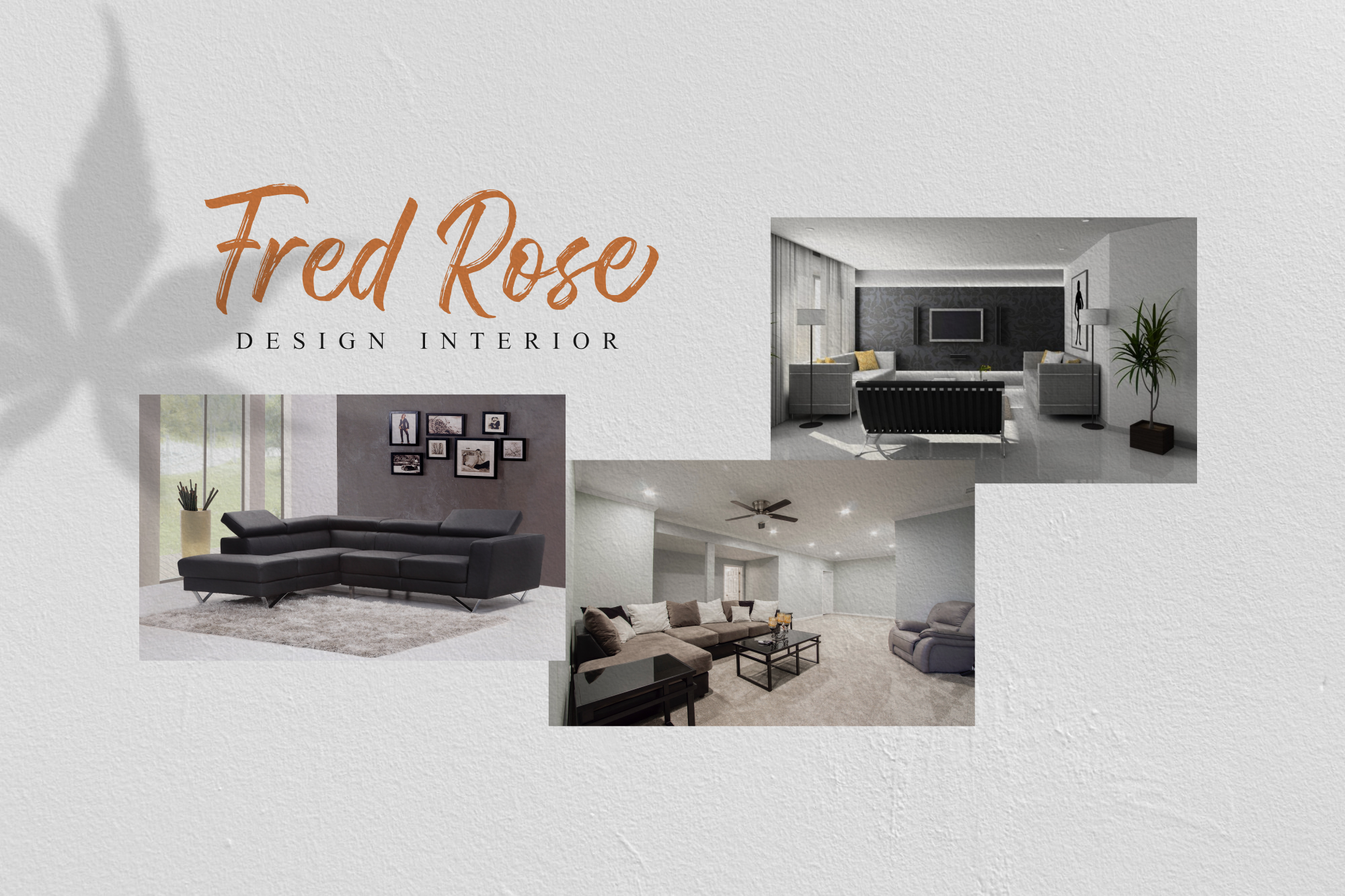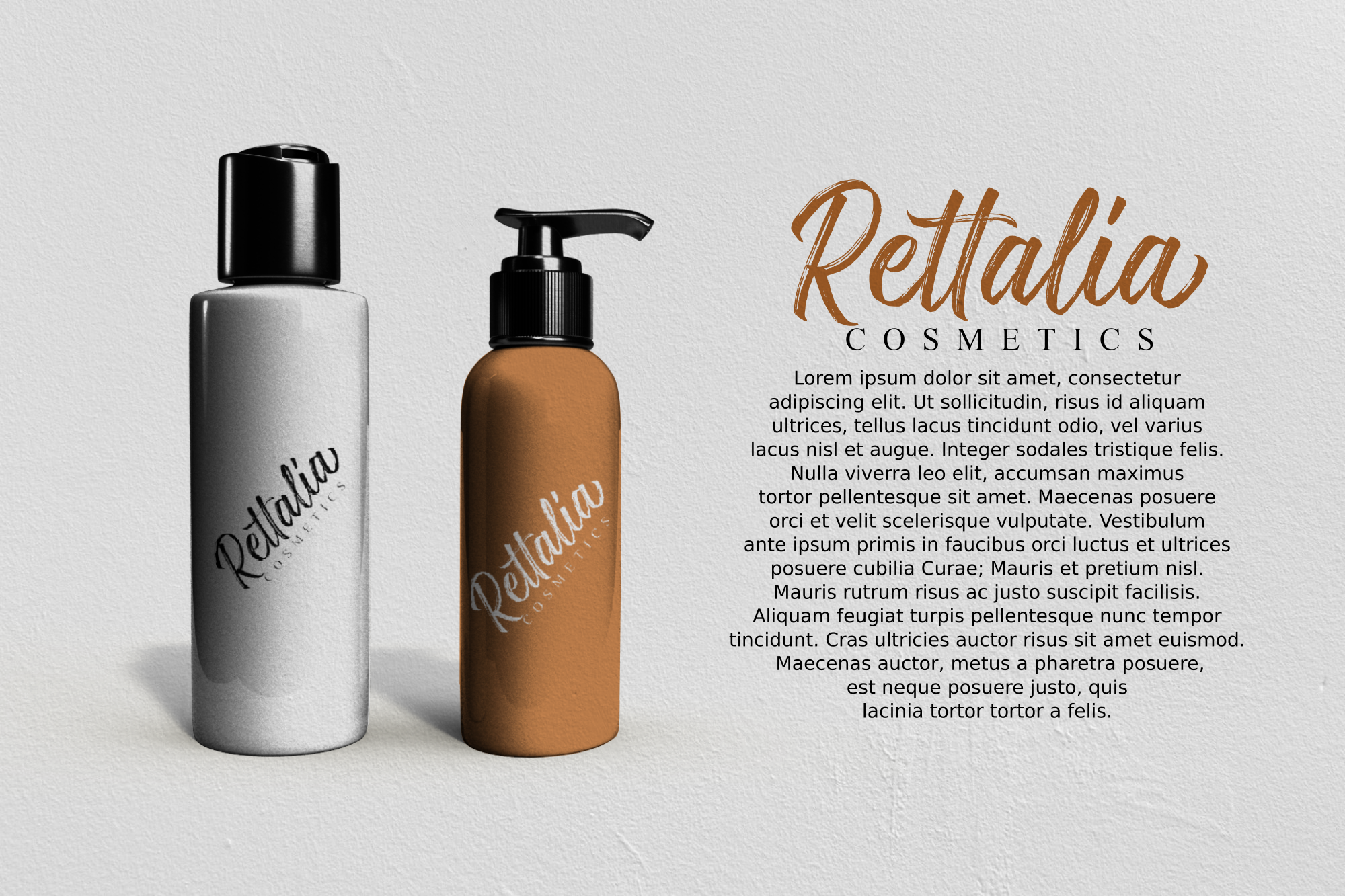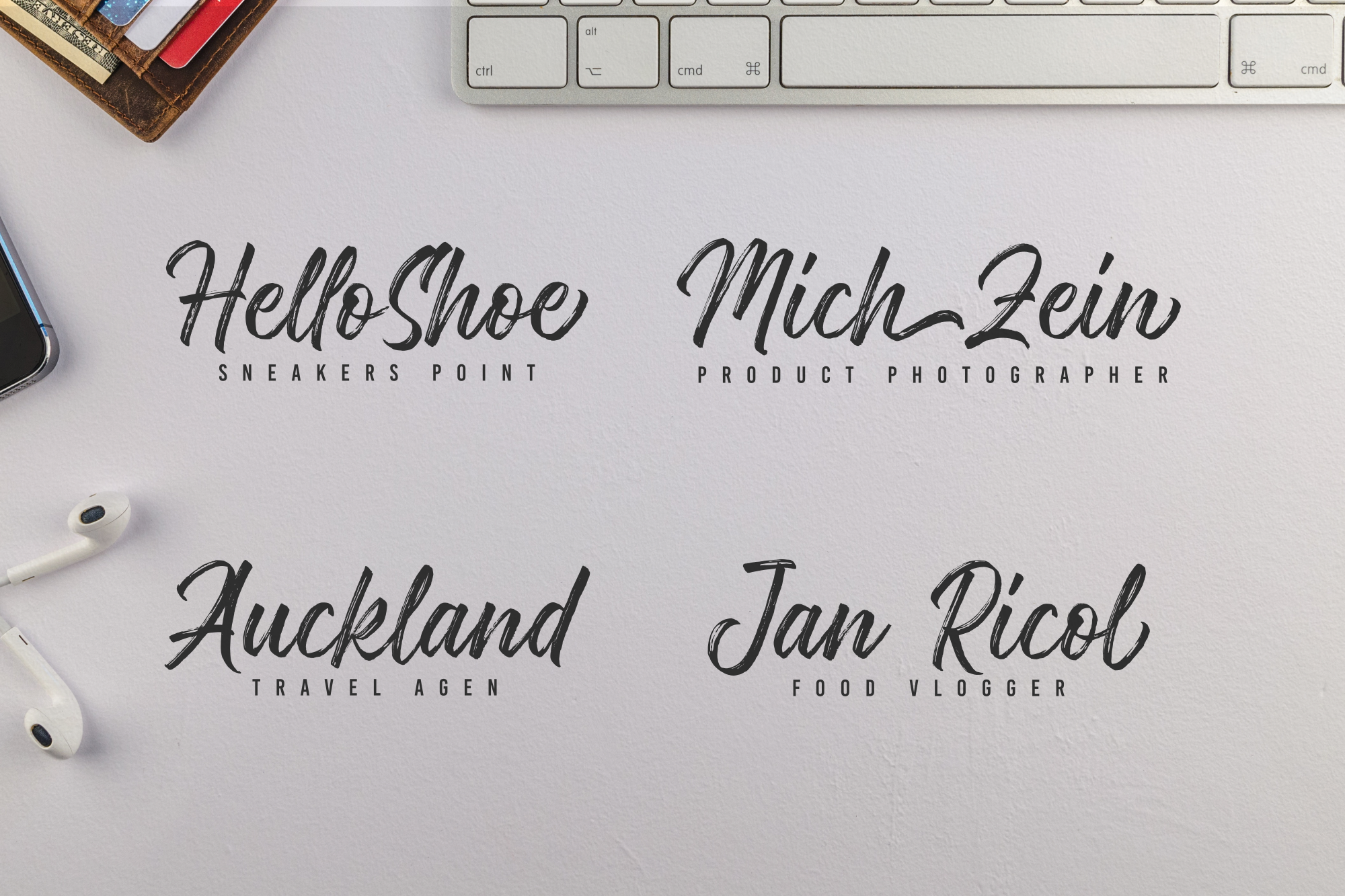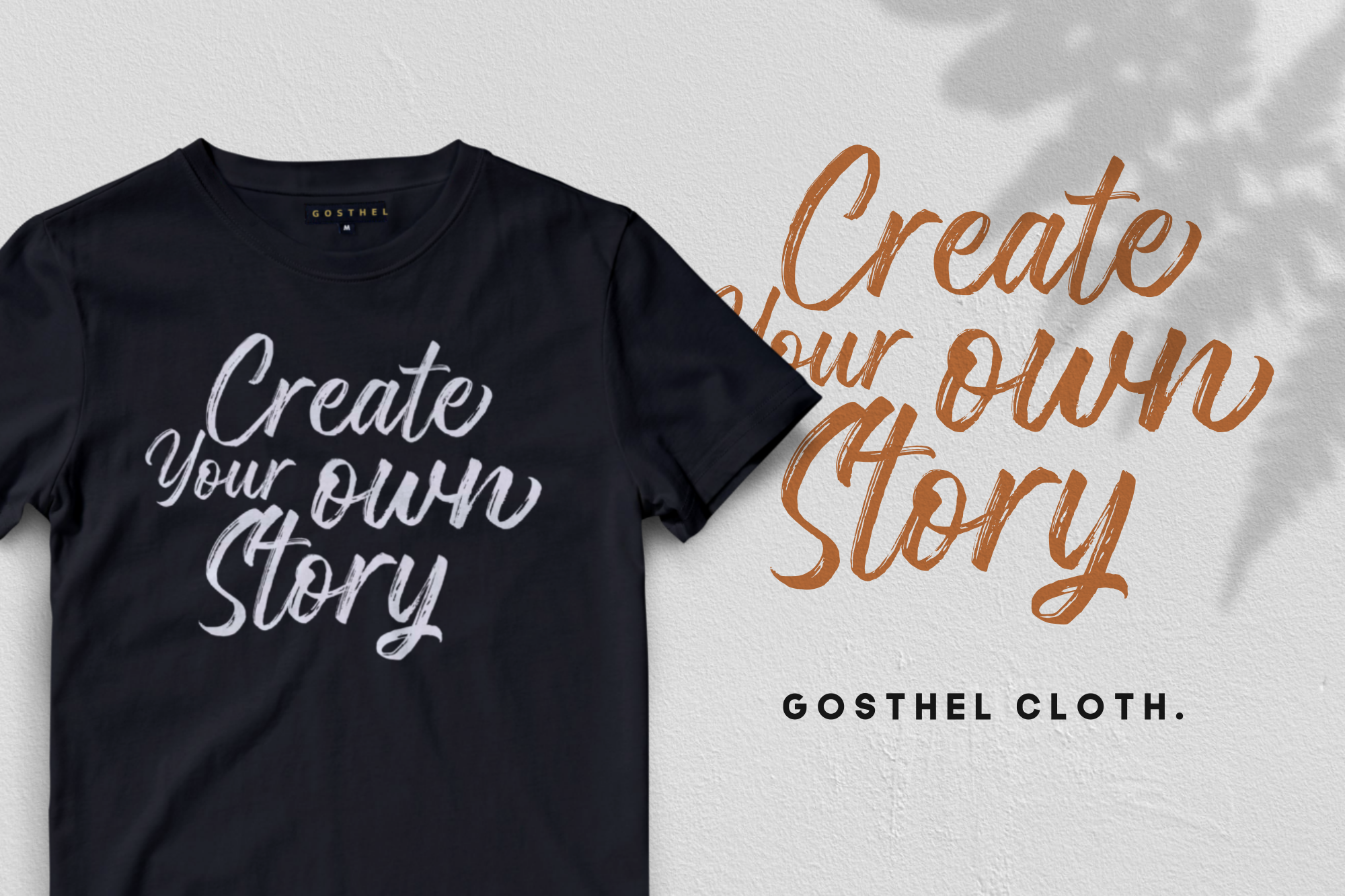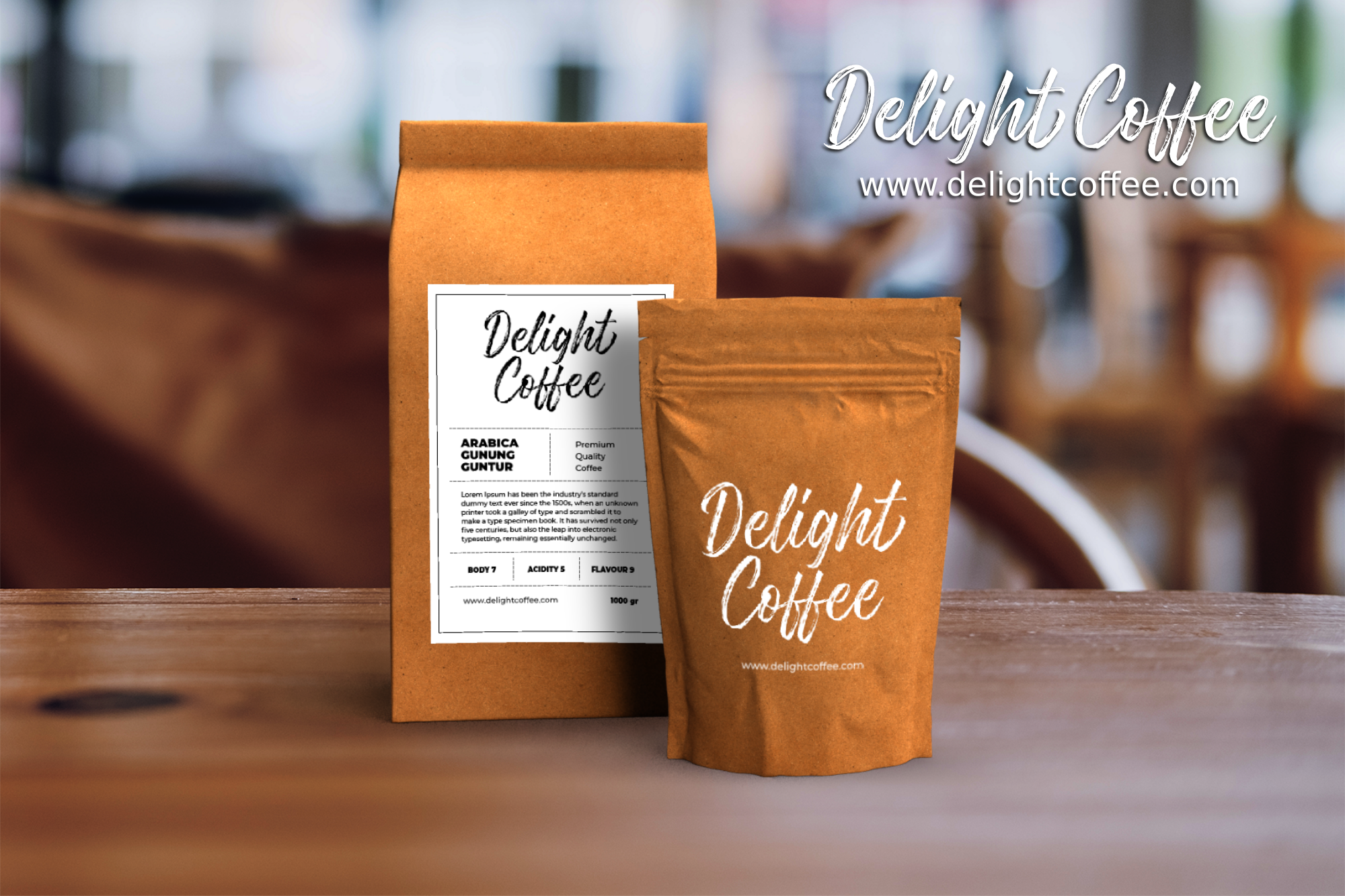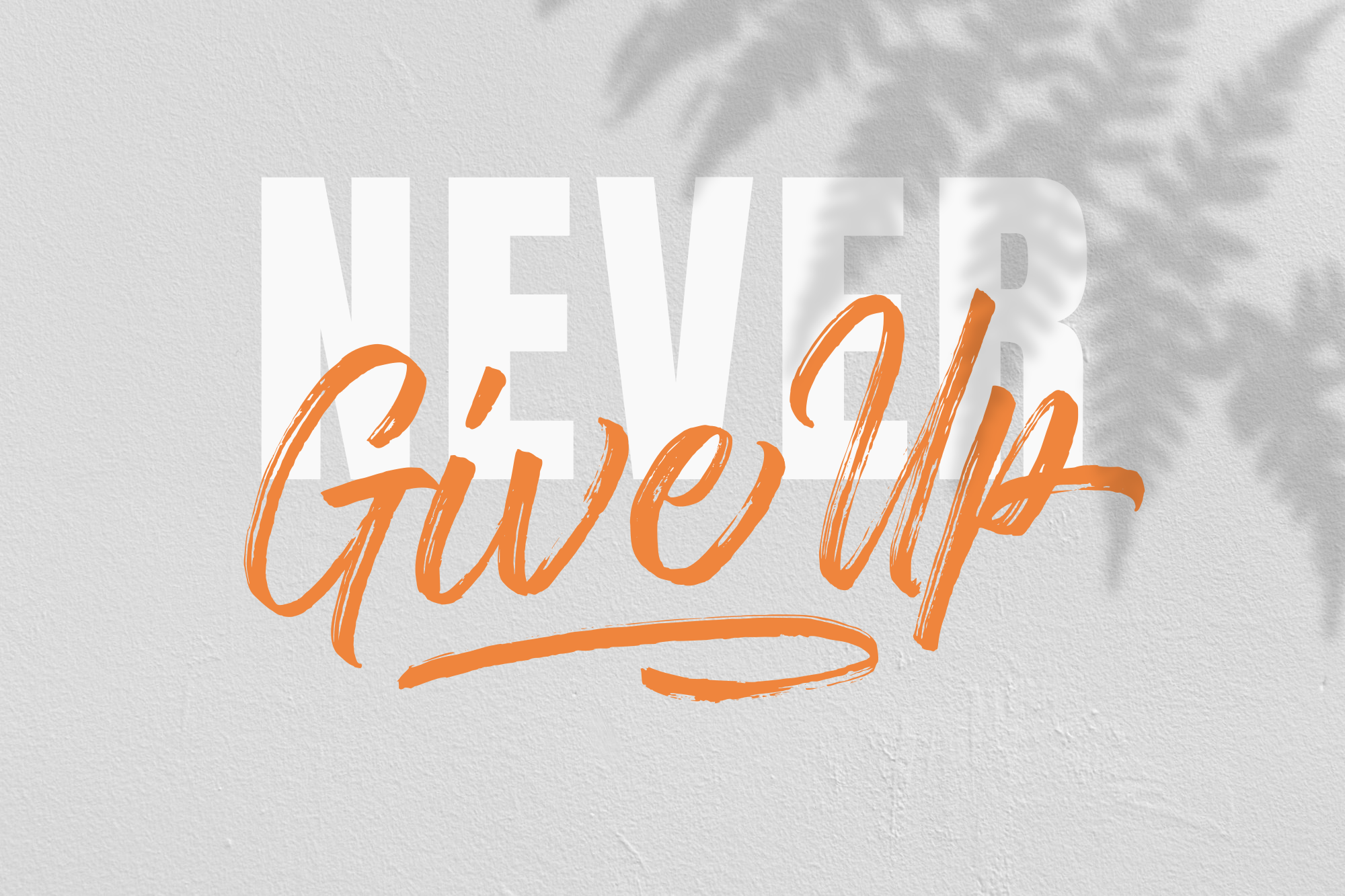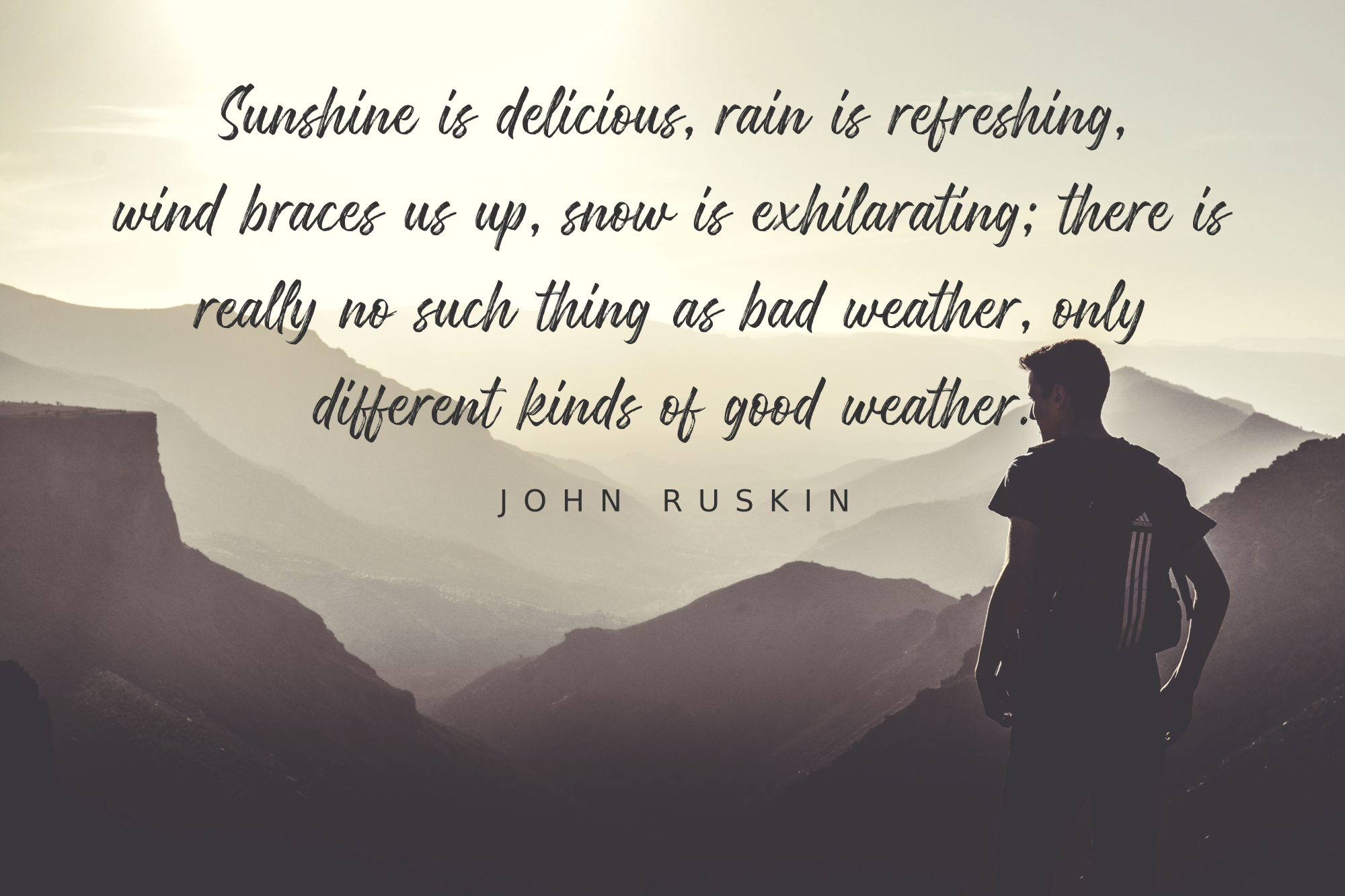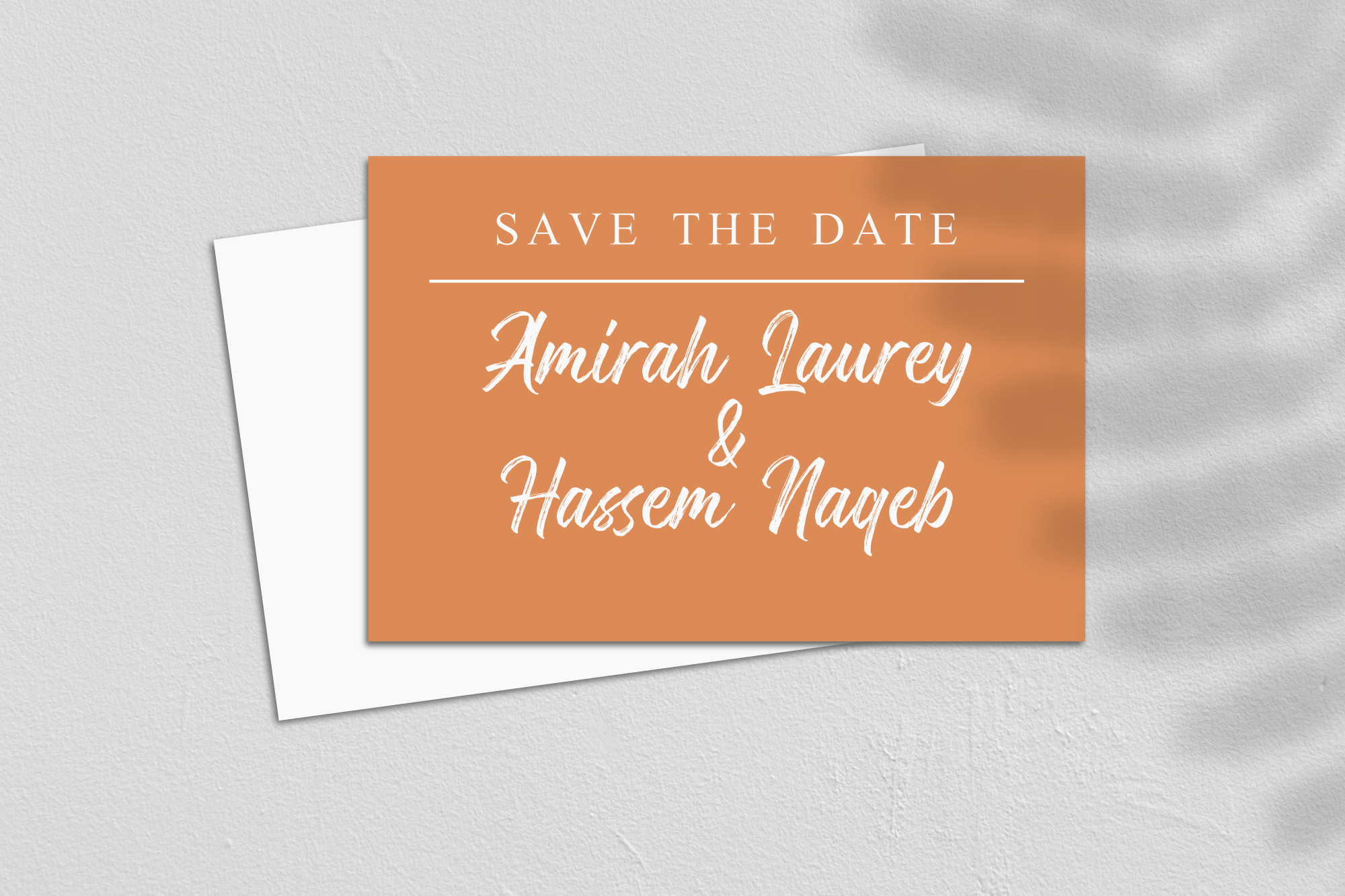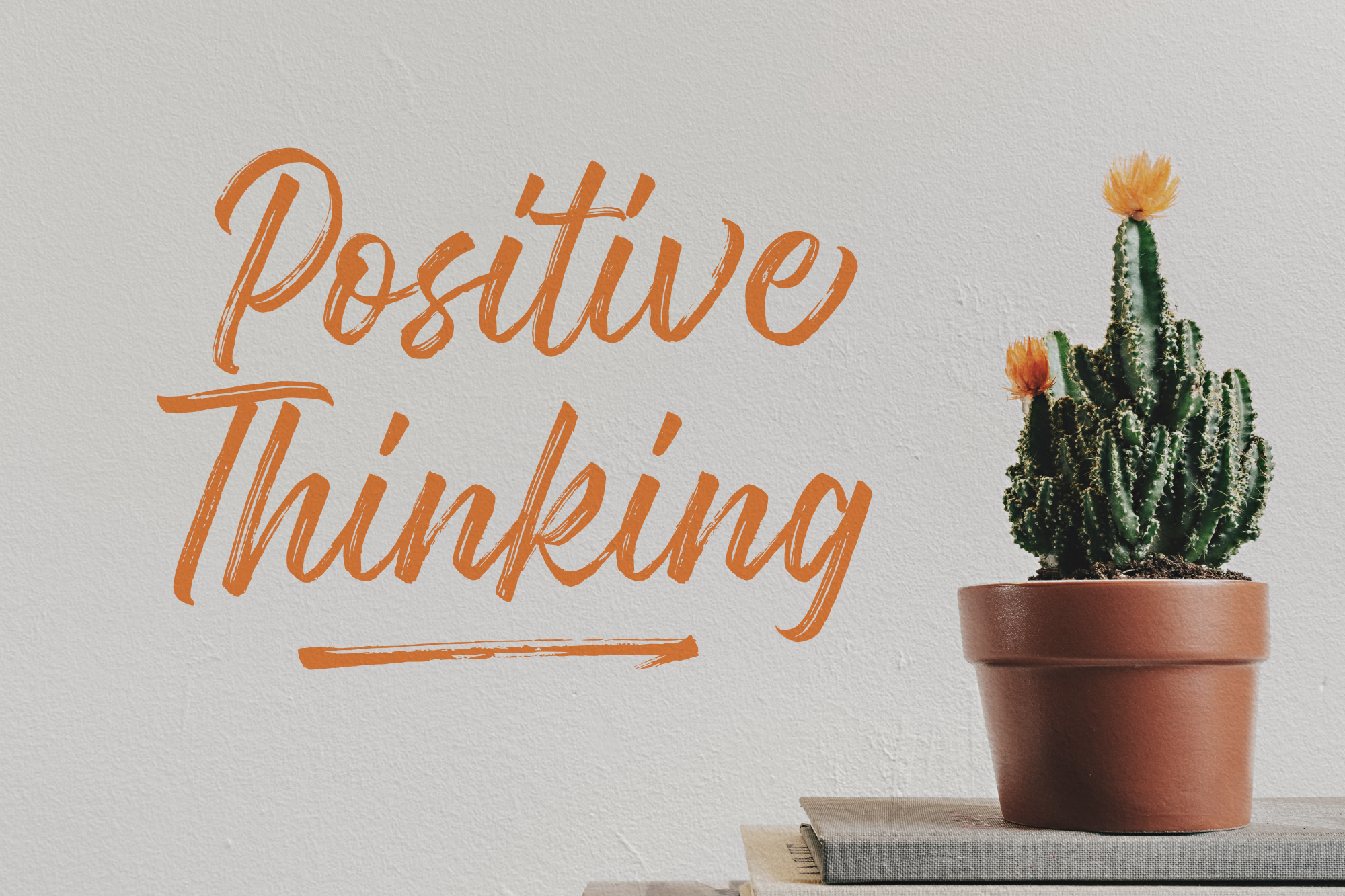
Gosthel - Dry Brush Font
Gosthel is a flowing brush script font with a personal handwritten appearance. Its natural strokes make it great for designs that need a warm and customized feel.
Gosthel is a flowing brush script font with a personal handwritten appearance. Its natural strokes make it great for designs that need a warm and customized feel. It works well for logos, branding, invitations, packaging, quotes, labels, posters, and other creative projects.
Logos, branding, invitations, packaging, quotes, labels, posters, and other creative projects